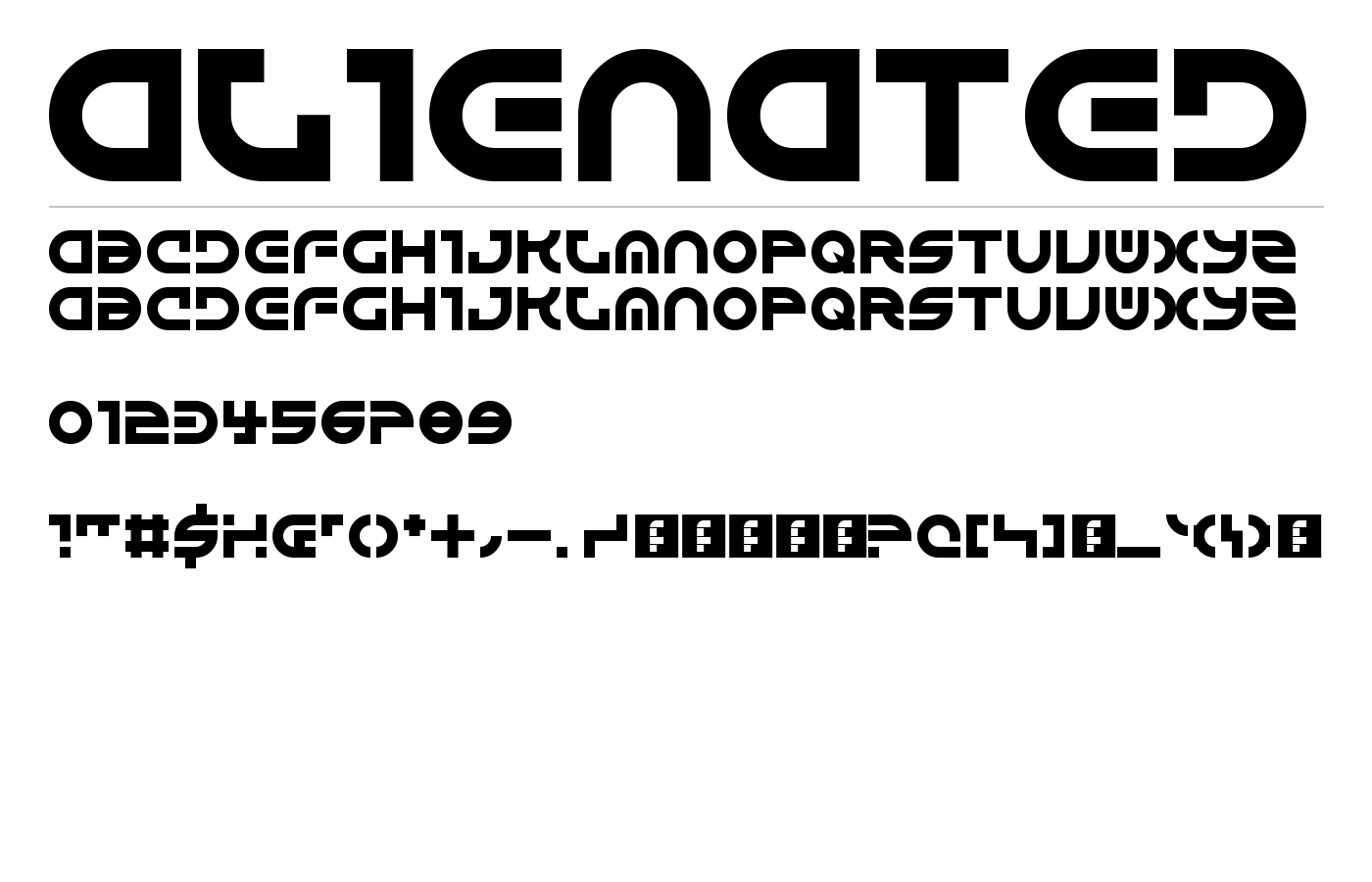
Alienated is a bold, modern geometric sans serif font that features unique, stylized letterforms with rounded corners and sharp cut-outs, creating a futuristic and tech-inspired look. Its wide stance and uniform stroke weight make it ideal for eye-catching headlines, logos, and branding projects that need a distinctive, contemporary, and slightly unconventional vibe. This font works best in digital and print contexts where a strong, innovative impression is desired.
Alienated Font
About Alienated Font
| Font family | Alienated Font |
| Designer | Andrew McCluskey |